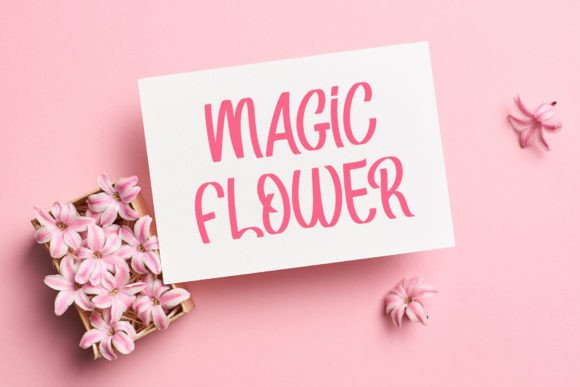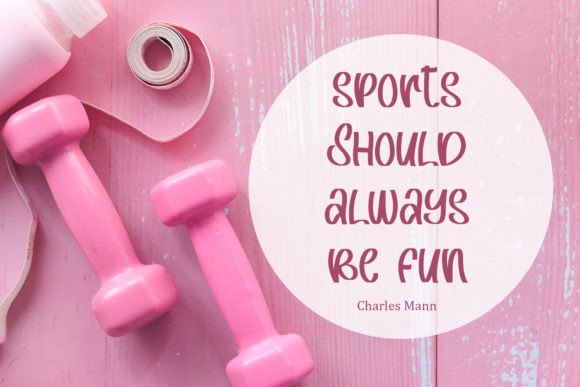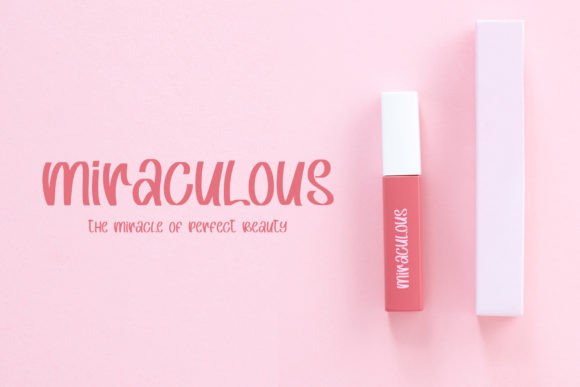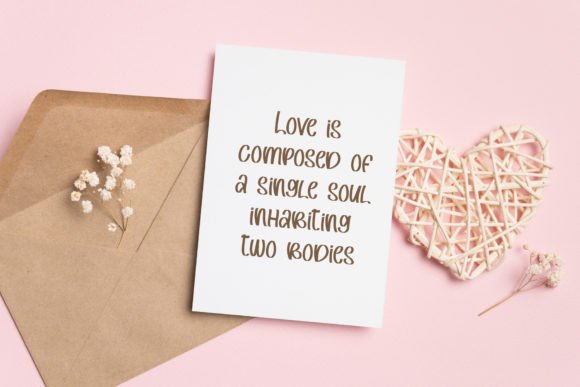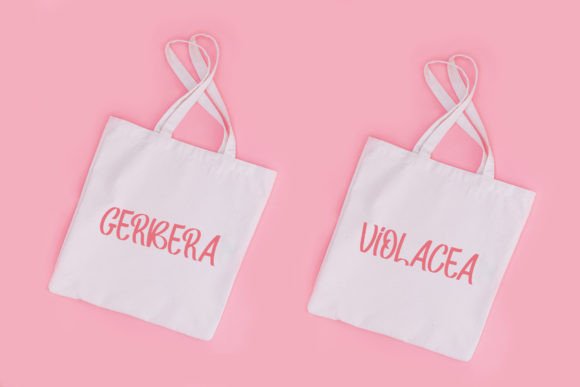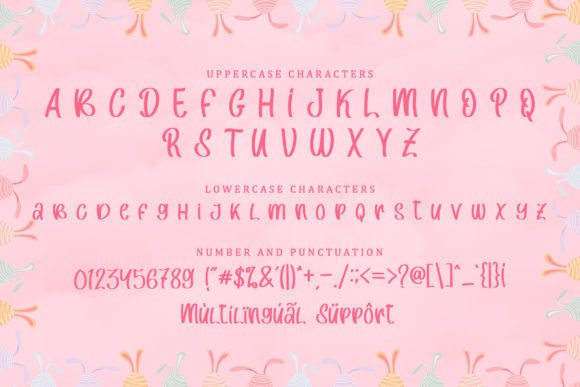
Easter Pink Font: Elevate Your Designs with Elegance and Sophistication
Are you looking for a font that can add a touch of refinement and modernity to your design projects? Look no further than Easter Pink Font. This beautiful script font is designed to exude elegance and sophistication, making it perfect for creating logos, headlines, and branding materials with a contemporary feel.
What is Easter Pink Font?
Easter Pink Font is a modern script font that features clean lines and subtle curves. Its unique design makes it stand out from other fonts, while its versatility allows it to be used in a wide range of design projects. Whether you’re creating a logo, headline, or branding material, Easter Pink Font is sure to make a lasting impression.
Key Features of Easter Pink Font
- Clean Lines: Easter Pink Font features clean lines that give it a modern and sleek look. This makes it perfect for designs that require a touch of sophistication.
- Subtle Curves: The subtle curves in Easter Pink Font add a touch of elegance and refinement, making it ideal for designs that require a high level of sophistication.
- Versatility: Easter Pink Font is a versatile font that can be used in a wide range of design projects, from logos and headlines to branding materials and more.
- Modern Design: Easter Pink Font has a modern design that is sure to make your designs stand out from the crowd.
Why Choose Easter Pink Font?
There are many reasons why Easter Pink Font is the perfect choice for your design projects. Here are just a few:
- Elegance: Easter Pink Font exudes elegance and sophistication, making it perfect for designs that require a high level of refinement.
- Modernity: Easter Pink Font has a modern design that is sure to make your designs stand out from the crowd.
- Versatility: Easter Pink Font can be used in a wide range of design projects, making it a great addition to any designer’s toolkit.
- Easy to Read: Easter Pink Font is easy to read, making it perfect for designs that require a high level of legibility.
How to Use Easter Pink Font
Easter Pink Font is easy to use and can be incorporated into your design projects in a variety of ways. Here are a few tips:
- Use it as a Headline Font: Easter Pink Font is perfect for use as a headline font, adding a touch of elegance and sophistication to your designs.
- Use it for Logos: Easter Pink Font is ideal for use in logos, providing a modern and sleek look that is sure to make your brand stand out.
- Use it for Branding Materials: Easter Pink Font can be used in a variety of branding materials, from business cards to brochures and more.
Tips for Pairing Easter Pink Font with Other Fonts
Pairing Easter Pink Font with other fonts can be a great way to add depth and interest to your designs. Here are a few tips:
- Pair it with a Sans-Serif Font: Pairing Easter Pink Font with a sans-serif font can create a nice contrast and add visual interest to your designs.
- Pair it with a Serif Font: Pairing Easter Pink Font with a serif font can create a sophisticated and elegant look.
- Experiment with Different Font Sizes: Experimenting with different font sizes can help to create a visually appealing design.
| Font Name | Easter Pink Font |
| Author | Esa Maradany |
Easter Pink Font is a beautiful and modern script font that is perfect for adding a touch of elegance and sophistication to your design projects. With its clean lines, subtle curves, and versatile design, Easter Pink Font is sure to make a lasting impression. Whether you’re creating logos, headlines, or branding materials, Easter Pink Font is the perfect choice.